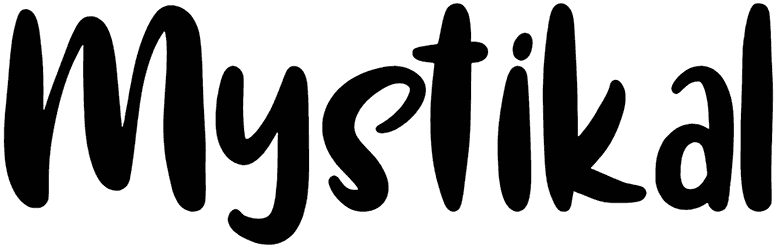
Mystikal Font
Mystikal is a script font that gives you a miraculous advantage in the field of designing eye-grabbing graphic content the such as illustrations, stickers, flyers, social media posts, or the user interface of application…
Mystikal is a script font that gives you a miraculous advantage in the field of designing eye-grabbing graphic content the such as illustrations, stickers, flyers, social media posts, or the user interface of applications. Due to its crooked and oblique characters, it can share a vibe of dynamic, playfulness, drama, or jauntiness with the audience and easily convinces them to follow your artwork.